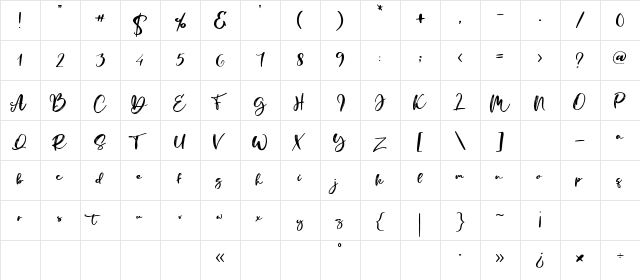
Manstro Brush Style Regular
Design Context for Manstro Brush Style Typeface
Manstro Brush Style brings a calligraphic fluidity to the page — its connecting strokes and expressive curves give it an unmistakably human quality.